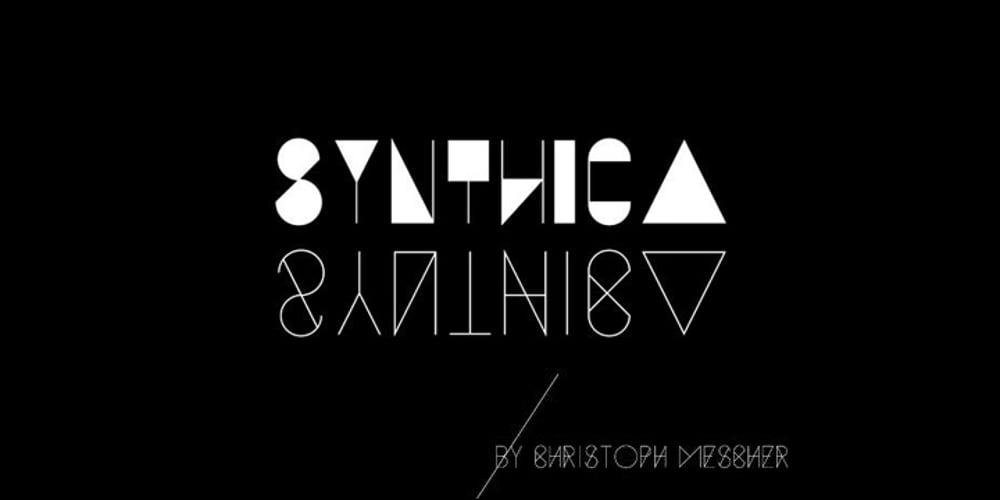
Synthica
Synthica font
Synthica Font Family was designed by Christoph Mescher and published by Volcano Type. Synthica contains 2 styles and family package options. Synthica is the advanced version of a geometrically constructed typeface – designed for a thesis project in summer 2010 in Pforzheim. In the context of electronic music and the profound analysis of its parameters, this typeface is primarly based on a strict modular grid. Additionally, the ascender, descender and the x height had slightly been increased in order to even out a visual difference in size between the glyphs. The name „Synthica“ dervives from a basic principle in electronic sound synthesis. Sinus, triangle and square are some of the basic waveforms in the synthesizers’ oscillator section and were thus used as geometric modules for the grid. The modularity and geometry also derive from different structures of electronic music. The strong emphasis on diagonal lines creates a rhythmic typeface that connotates electronic music patterns with highly recognisable glyphs. The contrast between digital and analog is another basic idea of this typeface: while Synthica Outline has a more synthetic and fragile character, the filled version Synthica Black serves as the analog counterpart.